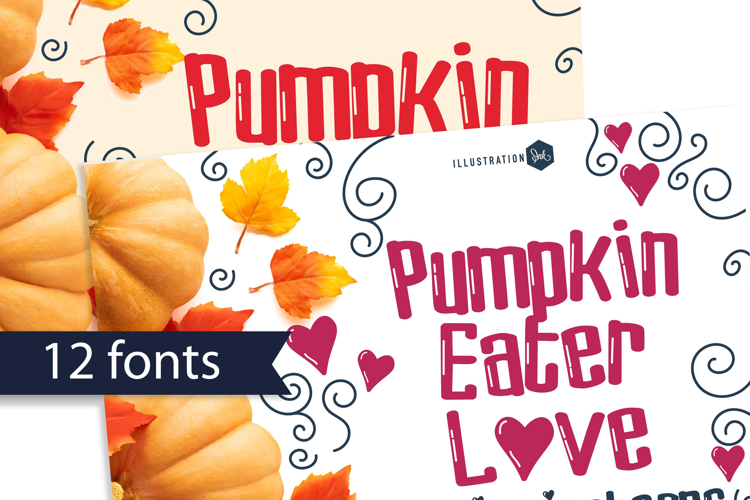
PN Pumpkin Eater Font Family
This hand-crafted font is a whimsical, hand-crafted sans serif with lots of toggle. Several family members sport highlights and some sport hearts. There are 12 variations included.
• The letters are not perfectly uniform in size or shape.
• There may be slight variations in the spacing between letters and words.
• The font may have a "wiggly" or "squiggly" appearance.
• The font may be difficult to read at small sizes.